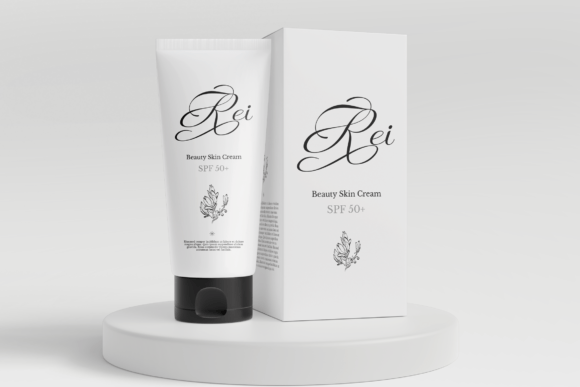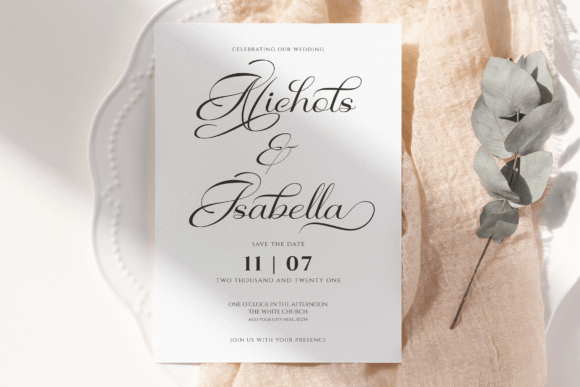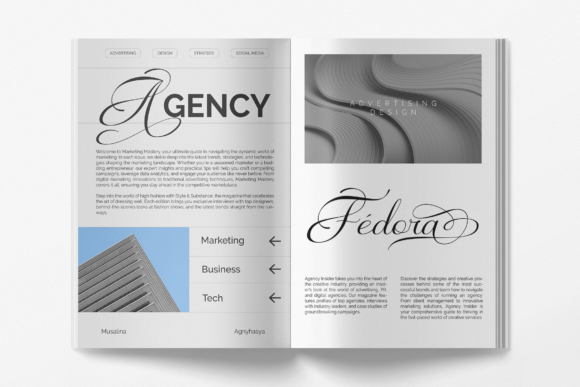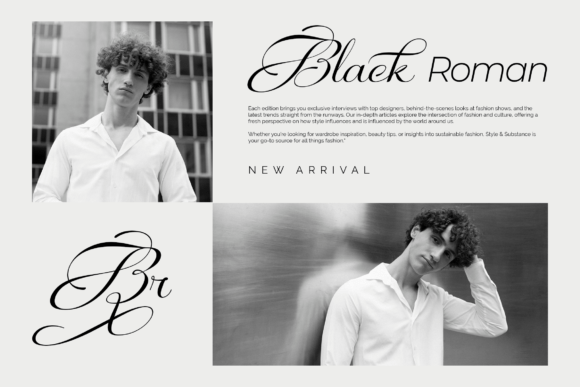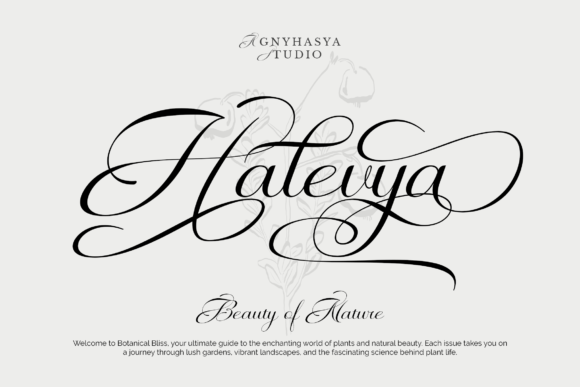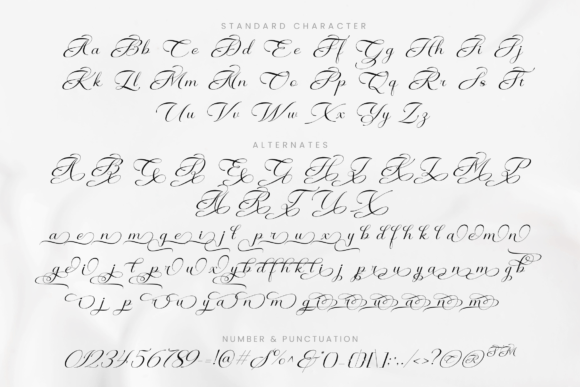
Introduction to Musalina Font
As a designer, there’s nothing quite like the thrill of bringing a creative project to life. The hours spent pouring over sketches, refining ideas, and perfecting the details all culminate in a moment of pure satisfaction when your design finally takes shape. And, let’s be honest, the right font can make all the difference in elevating your work from good to great. This is where Musalina Font comes in – a stunning, high-quality handwritten font that’s sure to become your new go-to.
With its elegant calligraphic influences and modern twist, Musalina Font is the perfect design resource for any project. Whether you’re working on a branding campaign, creating a website, or crafting a beautiful invitation, this versatile font is sure to impress. And, with its transparent background, you can easily layer it with other elements to create a truly unique look.
Key Features of Musalina Font
- High-quality design for creative projects, ideal for designers and artists looking for a unique font.
- Unique characteristics include its elegant and cursive script, making it perfect for invitations, logos, and other creative endeavors.
Honest Review: Musalina Font
I recently had the chance to experiment with the Musalina Font, and I must say, it’s a game-changer for any creative project. This high-quality font is a fantastic addition to any design resource collection.
- What works well: ✨ The Musalina Font offers a wide range of stylish and elegant characters that can be easily customized to fit your design needs. The transparent background feature is also a huge plus, allowing for seamless integration with various design elements.
- What works well: ✨ The font is also highly versatile, making it suitable for both digital and print designs. Whether you’re working on a logo, branding, or just need a font for a blog post, Musalina Font has got you covered.
However, there are a few limitations to consider: ⚠️ The font might not be suitable for very small text sizes, as the characters can become slightly distorted. Additionally, some users may find the font a bit too ornate, which can be overwhelming for simple designs.
Musalina Font
The Musalina Font is suitable for various creative projects, including logo designs, brochures, business cards, and social media graphics. Its high-quality design and transparent background feature make it an ideal choice for designers.